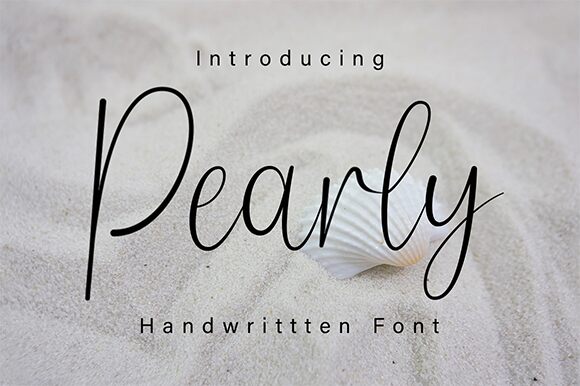
Pearly
Pearly font is a light handwritten creation by DN Creative. The chic and elegant typeface expresses a casual feel with its flowing penwork and expressive design. Pearly breaks each line with an irregular flow, rendering unique and exceptional beautiful bodies of text that no eye can resist.